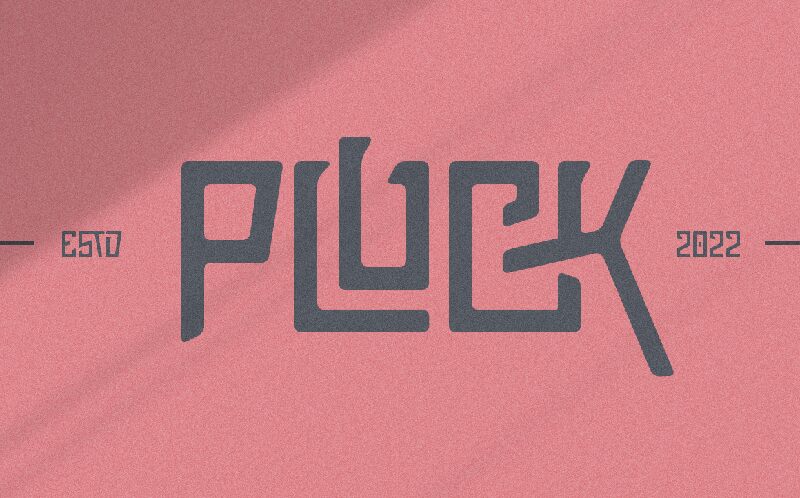
Pluck Regular
Pluck font by Grontype is a light display collection with modern-looking characters. Its industrial look, mechanical influence, and assertive character capture attention in an unusual way. While its geometric shapes are extremely pleasing to the eyes, its assertive stance gives so much room for exploration.
This free display font's use cases include logotypes, labels, posters, product packaging, titles or headers in magazines and newspapers, game design graphics and UI/UX experience. Other fitting projects can vary from movie titles to animations and book covers to billboards.